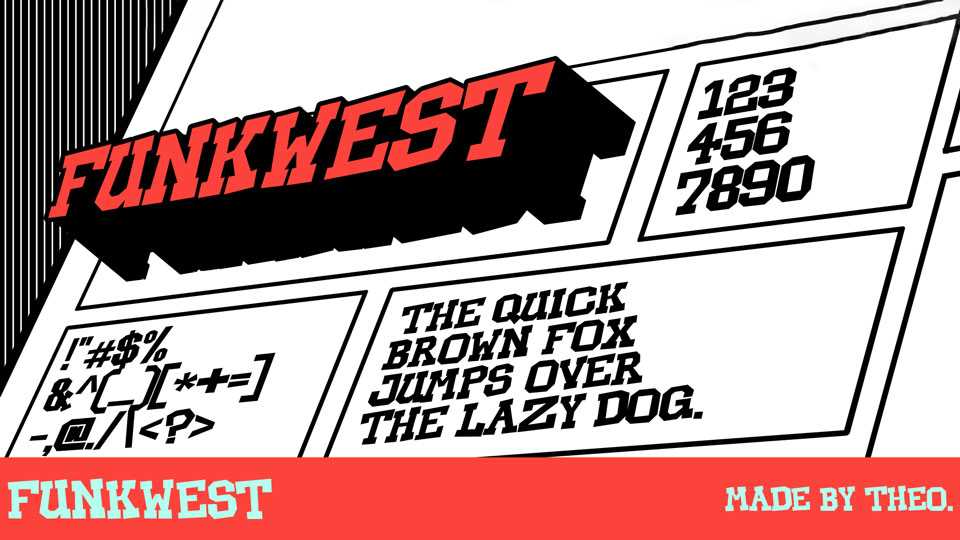
Download Funkwest font, a funky western typeface that merges the rugged charm of the Wild West with a playful, retro twist. Funkwest font features bold, adventurous letterforms with exaggerated serifs and whimsical details.
Designer: Theophine Savio Theodore